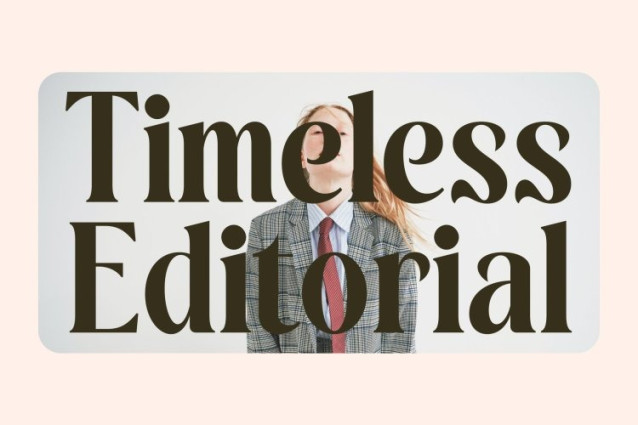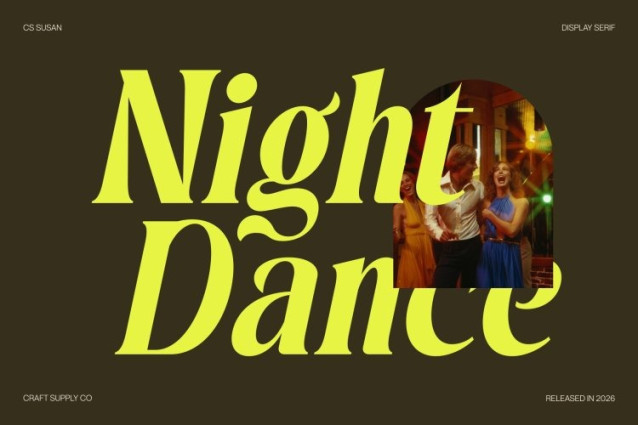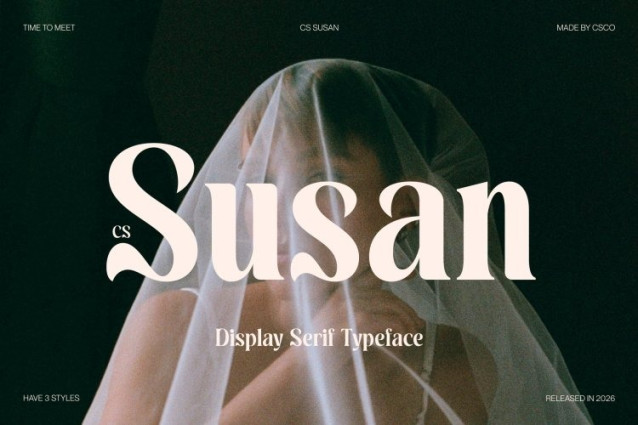
CS Susan Font This is a stylistic serif font that blends modern sensibility with classic elegance. Built on refined serif foundations, it introduces an artistic approach that feels timeless and distinctive. The font delivers a sophisticated presence while allowing creativity to shine through every letterform.
Artistic Details with Unique Ligatures
One of the strongest features of this is its unique ligatures, designed to add personality and visual interest to text. These artistic connections create a flowing rhythm and elevate typography into a statement element. The ligatures enhance expression without sacrificing readability, making the font both decorative and functional.
Timeless Beauty with Creative Personality
This font captures a sense of timeless beauty through carefully balanced proportions and elegant curves. Its stylistic details give it a creative edge, allowing designs to feel high-end and expressive at the same time. The font feels confident, refined, and full of character, ideal for standout compositions.
Perfect for Logos and Editorial Design
Ideal for logos, posters, and editorial layouts, this font excels in projects that seek a creative, premium aesthetic. Whether used in branding identities, magazine headlines, or artistic posters, it delivers a refined yet imaginative look that brings a unique, high-end personality to modern design.